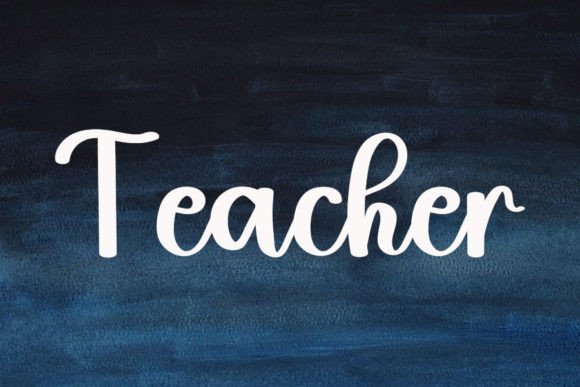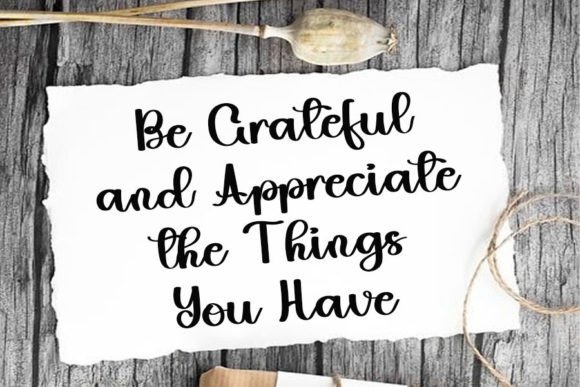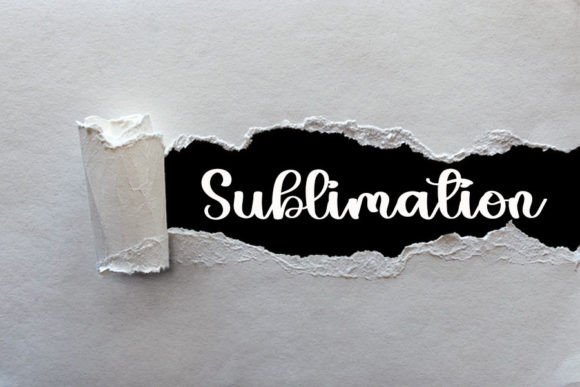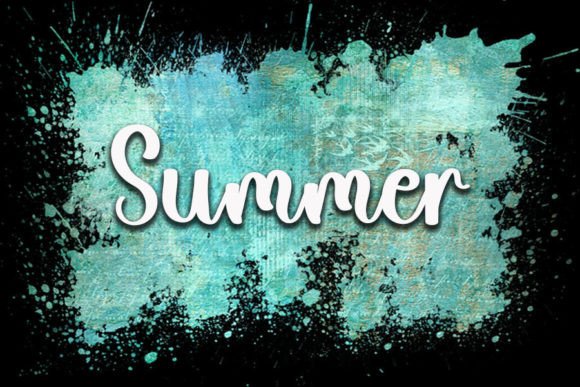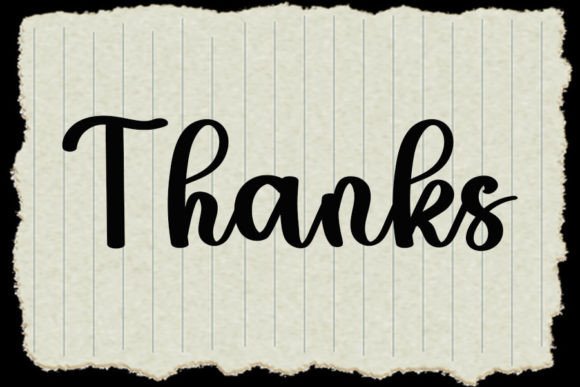
Friday
About Friday
Friday is a magical handwritten font carefully created with a touch of elegance. Clean and a little bit quirky, this font is the perfect fit for all of your logos, branding, social media, and crafty DIY projects.